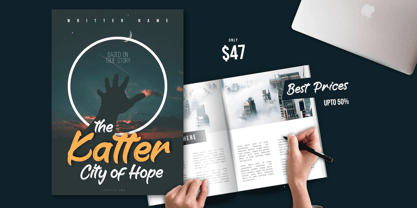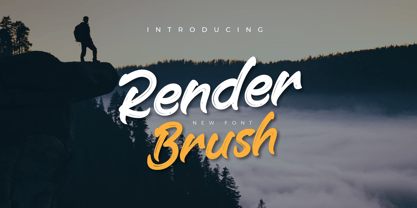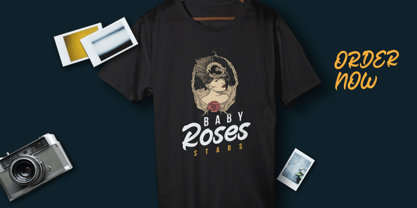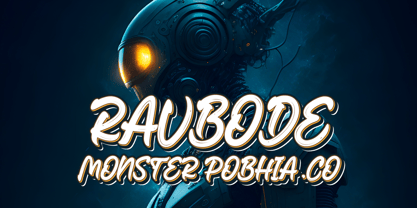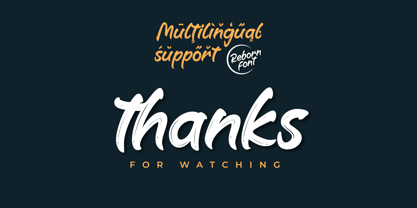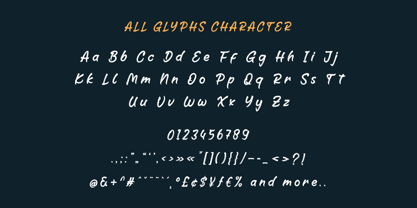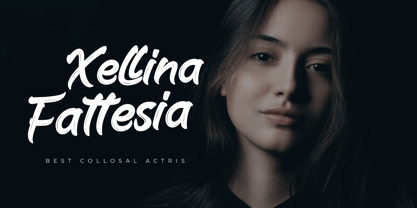
Render Brush
by Product Type
The Render Brush Font Family was designed by Lita Faolina and published by Product Type. Render Brush contains 1 styles. More about this family
Render Brush is a revitalizing and energetic handwritten font. With strong sways and bold lines, this font brings a sense of freshness and courage. Ideal for projects looking for a spirited and refreshing appearance, such as merchandise designs, banners, or promotional materials aiming for a bold and innovative impression.
Designers: Lita Faolina
Foundry: Product Type